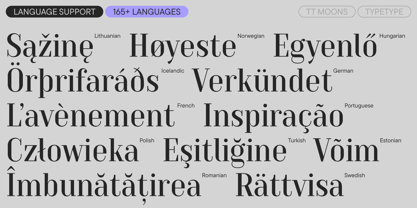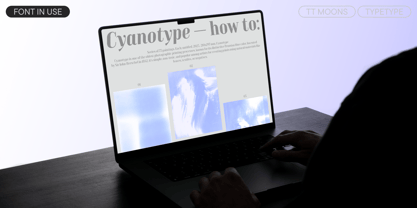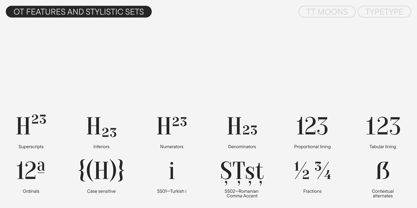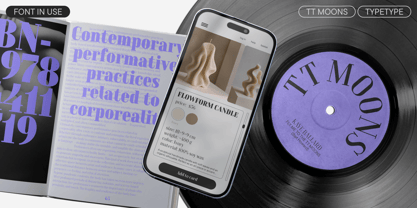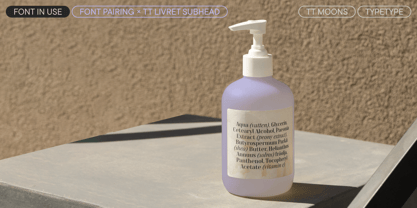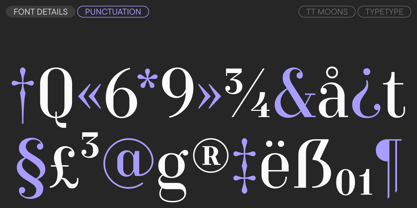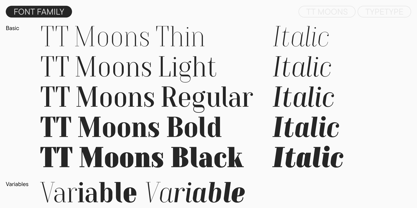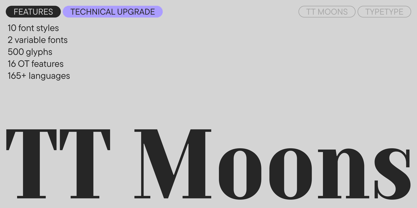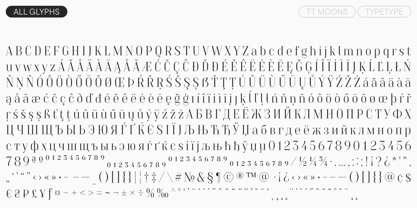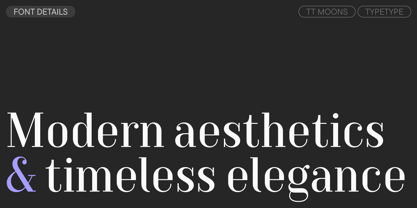
TT Moons
La famille de polices TT Moons a été conçue par Ivan Gladkikh, TypeType Team et publiée par TypeType. TT Moons contient 12 styles et options de package familial.
Introducing the updated TT Moons version 1.200! We've expanded the character set, made technical improvements to the font, and added new features and variable styles.
TT Moons is an elegant modern serif typeface with narrow proportions, high contrast, and a harmonious rhythm. It combines traditional forms with contemporary details. Thanks to these features, the font's design evokes classic aesthetics while also appearing fresh and current.
The typeface includes five font styles in different weights and their corresponding italics. In the updated version, we've added new glyphs and OpenType features for enhanced functionality, as well as two variable fonts that change along the weight axis—one for the upright styles and one for the italic styles. Furthermore, we performed a thorough manual kerning review and added manual hinting to all styles.
TT Moons is ideal for typesetting magazines, books, and newspapers. This typeface performs best at large or medium sizes. It works equally well in print and on the web, can be part of corporate or product design, and used for posters or signage. The typeface is an excellent choice when you need to blend classic and contemporary aesthetics.
TT Moons 1.200 features:
• 12 styles: 5 uprights, 5 italics, and two variable fonts
• 500 glyphs per style
• 16 OpenType features
• Support for 165 languages
TT Moons — timeless elegance!